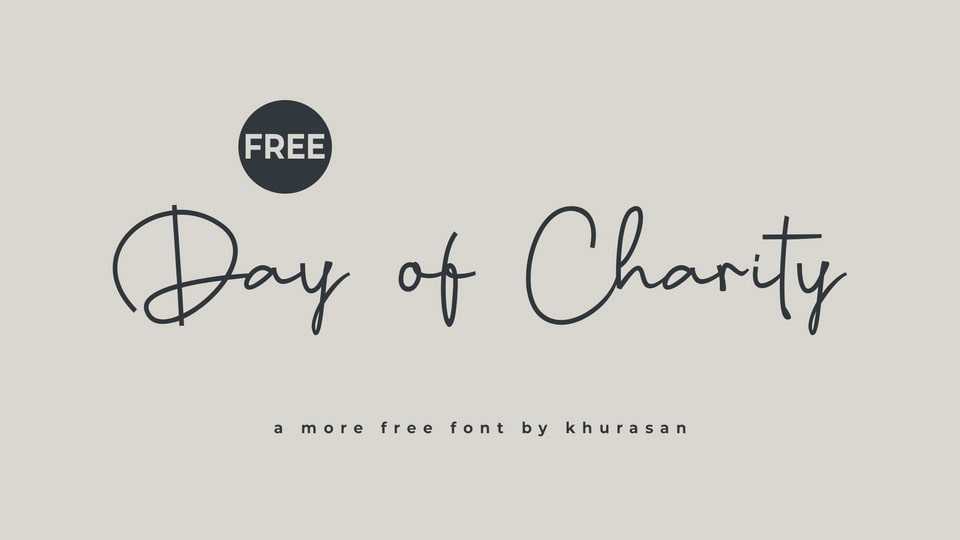
Download Day of Charity font, a refined script typeface with clean lines and subtle emotion minimal in form, rich in feeling, this font balances elegance with authenticity.